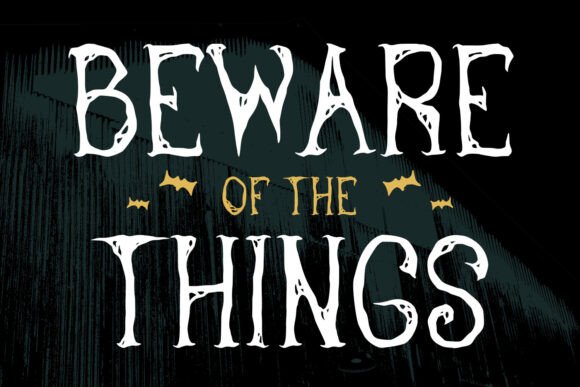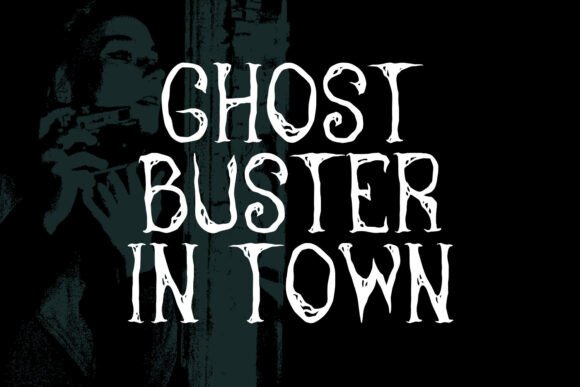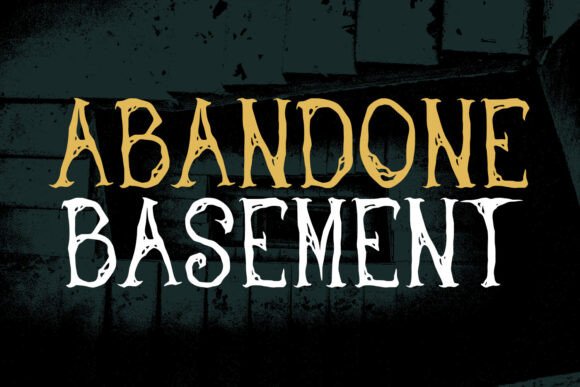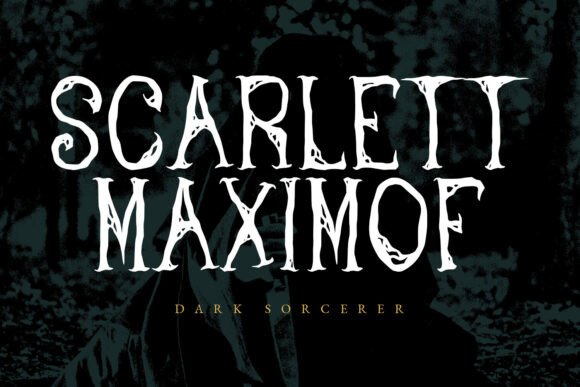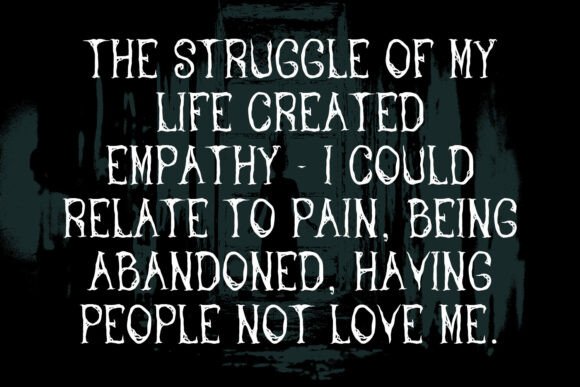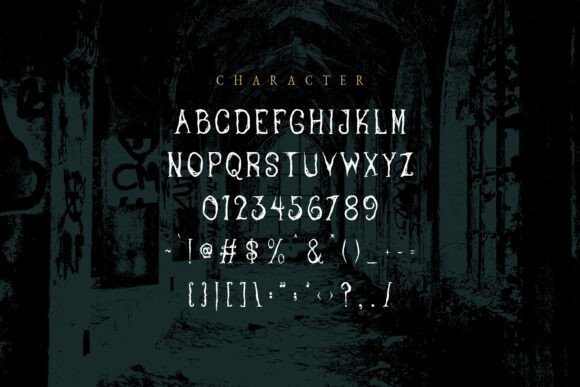
Unleashing the Fears with Littox Font
As a designer, there’s nothing quite like the thrill of bringing a creative project to life. Whether you’re working on a horror movie poster, a Halloween party invitation, or a thriller book cover, the right font can make all the difference. For those looking to evoke an eerie and unsettling atmosphere, I’ve recently stumbled upon a game-changing design resource – the Littox Font.
This spine-chilling horror display font is a masterclass in creating a sense of foreboding and unease. With its jagged, distorted letterforms and hauntingly organic details, Littox Font is sure to grab attention and leave a lasting impression. And the best part? It’s available for a free download, complete with a transparent background and high-quality design.
Key Features of Littox Font
- Includes multiple font styles with different weights and sizes
Honest Review: Littox Font
I recently had the chance to experiment with the Littox Font, a design resource that offers a wide range of creative possibilities for my projects. Initially, I was drawn to its modern aesthetic and the fact that it’s available for a free download. This made it an ideal choice for my latest design project, which required a unique and eye-catching font.
What works well with the Littox Font is its versatility and high quality. It’s available in various styles, including bold and italic, making it suitable for a range of creative projects. The transparent background option is also a great feature, allowing for seamless integration with other design elements. I found it particularly useful when creating graphics with intricate designs.
- ✨ High-quality design with a modern aesthetic
- ✨ Versatile font styles, including bold and italic
- ✨ Transparent background option for seamless integration
One of the limitations of the Littox Font is its limited character set. While it’s sufficient for most basic text, it may not be ideal for projects that require a wide range of characters, such as complex equations or foreign languages.
Overall, I’m impressed with the Littox Font and its potential for creative projects. Its high quality, versatility, and free download make it an excellent design resource for designers on a budget or those looking for a unique font for their next project.
For the best results, use Littox Font in conjunction with high-quality images and graphics. Experiment with different font sizes, colors, and styles to create a unique look.
Common Use Cases for Littox Font
Littox Font is ideal for a variety of creative projects, including: